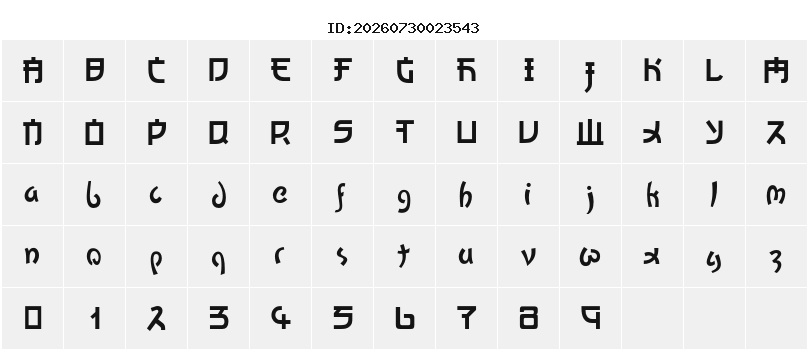
Kato Preview
• Font Name: Kato
• Full Font Name: Kato
About Kato.otf
Kato.otf is a modern, elegant sans-serif font designed for ultimate readability and visual harmony. Perfect for branding, headlines, web design, and print materials.